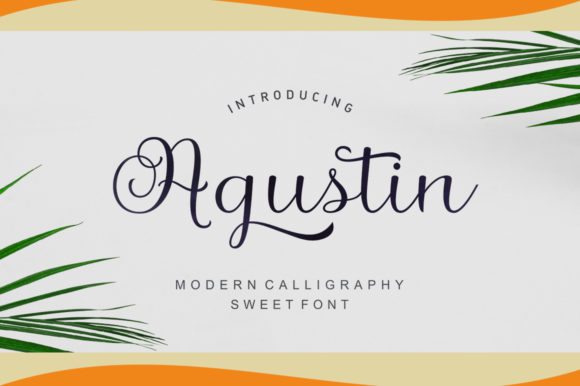
Welcome to the world of Agustin Script Font, an extraordinary script font crafted to bring a touch of charm and elegance to your creative endeavors. Designed by the talented team at Stripes Studio, Agustin Script is an immaculate handwritten font that combines effortless beauty with remarkable readability – a harmonious blend that makes it an exceptional choice for branding designs.
Unleash your creativity with Agustin Script, a font that effortlessly flows, adding a touch of personality and sophistication to your designs. Its intricate curves and smooth strokes create a visually captivating experience, drawing the eyes of your audience and leaving a lasting impression. Perfect for logos, branding, wedding invitations, and any project that calls for a touch of elegance, Agustin Script is the ideal font to elevate your designs to new heights.
Beyond its aesthetic appeal, Agustin Script boasts remarkable usability. Its clean lines and clear characters ensure excellent readability, even at smaller sizes, making it a versatile font that adapts seamlessly to various platforms and applications. Whether you're crafting a stunning logo, designing eye-catching social media graphics, or creating beautiful print materials, Agustin Script is your trusted companion, ensuring your message is conveyed with clarity and grace.
Immerse yourself in the enchanting world of Agustin Script and discover a font that not only enhances your designs but also touches the hearts of your audience. Its modern charm, infused with a timeless elegance, will leave a lasting impression on all who encounter it. Experience the magic of Agustin Script today and transform your creative visions into captivating realities.